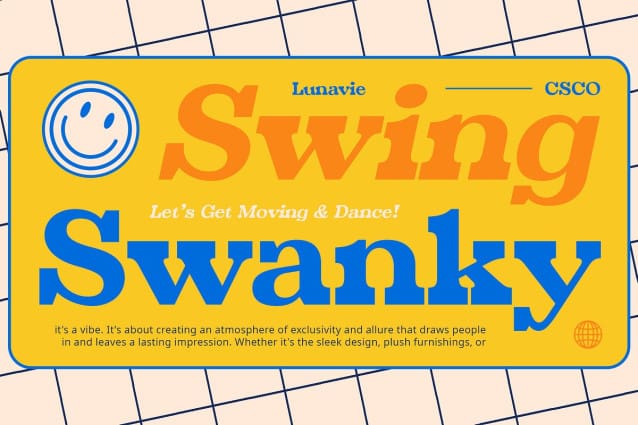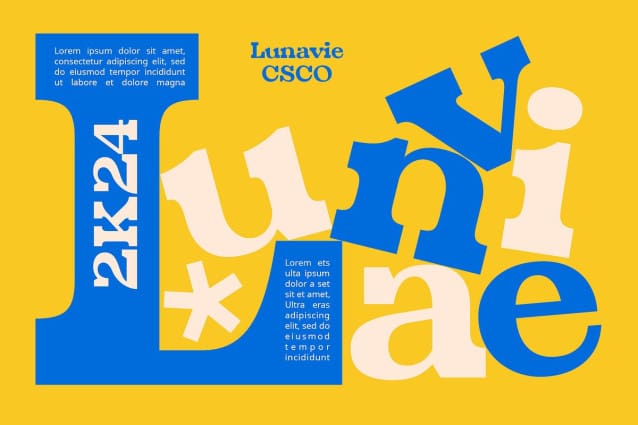
Lunavie Font
Lunavie Font – Bold Serif features a bold weight with moderate contrast serif, striking a balance between boldness and readability. Combining bold weight with moderate contrast ensures readability without compromising on visual impact. This unique combination makes Lunavie perfect for grabbing attention while maintaining clarity in any design project.
Funky Shape and Engaging Display
Experience the funky shapes of Lunavie, perfect for engaging display purposes that demand attention. Its playful shapes add an element of dynamism, making it ideal for captivating displays. Whether it’s for posters, banners, or advertisements, Lunavie Serif’s funky shapes guarantee a bold and memorable impression.
Versatile for Formal Corporate Needs
Despite its funky shape, Lunavie Font is versatile enough to meet formal corporate requirements, exuding professionalism. Its adaptability makes it suitable for various corporate applications, maintaining a professional yet engaging presence. Lunavie offers the flexibility to be used in formal documents, presentations, or branding materials, ensuring consistency across corporate communications. Whether it’s for corporate logos, business cards, or letterheads, Lunavie adds a touch of boldness and sophistication to any corporate identity.